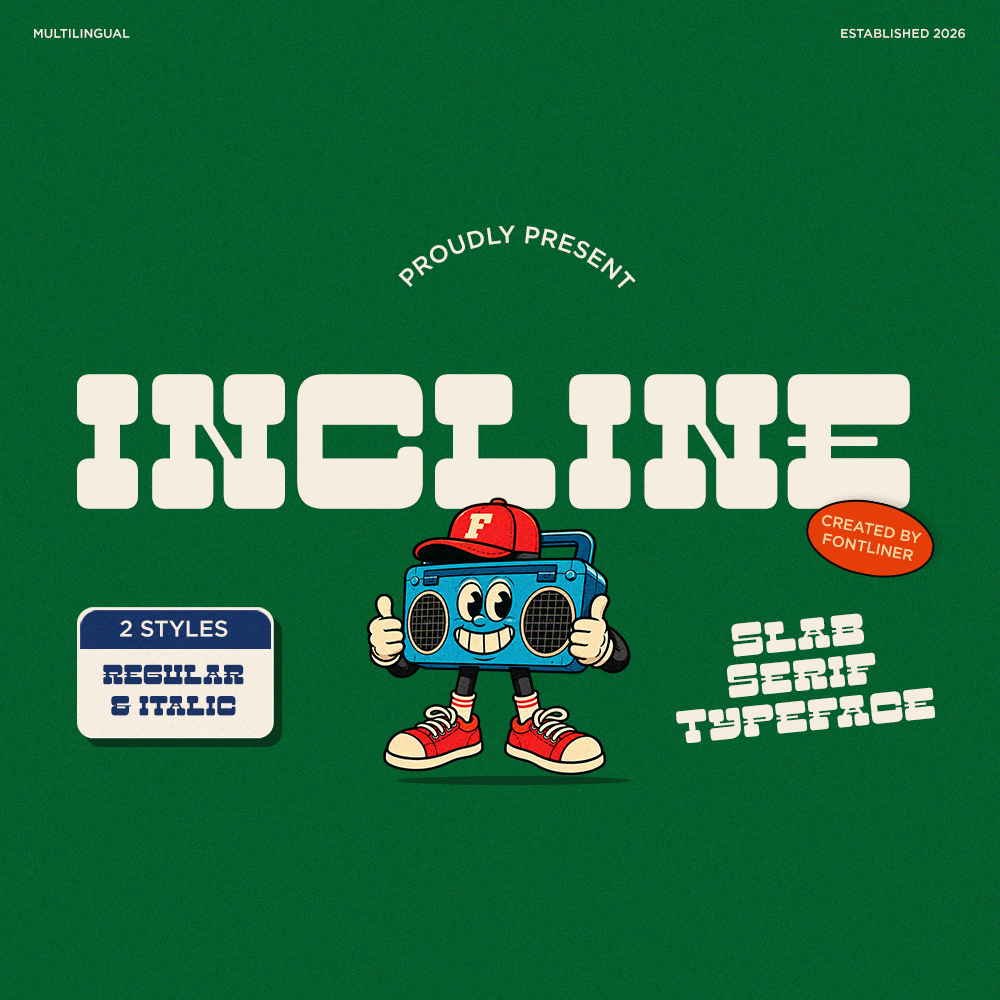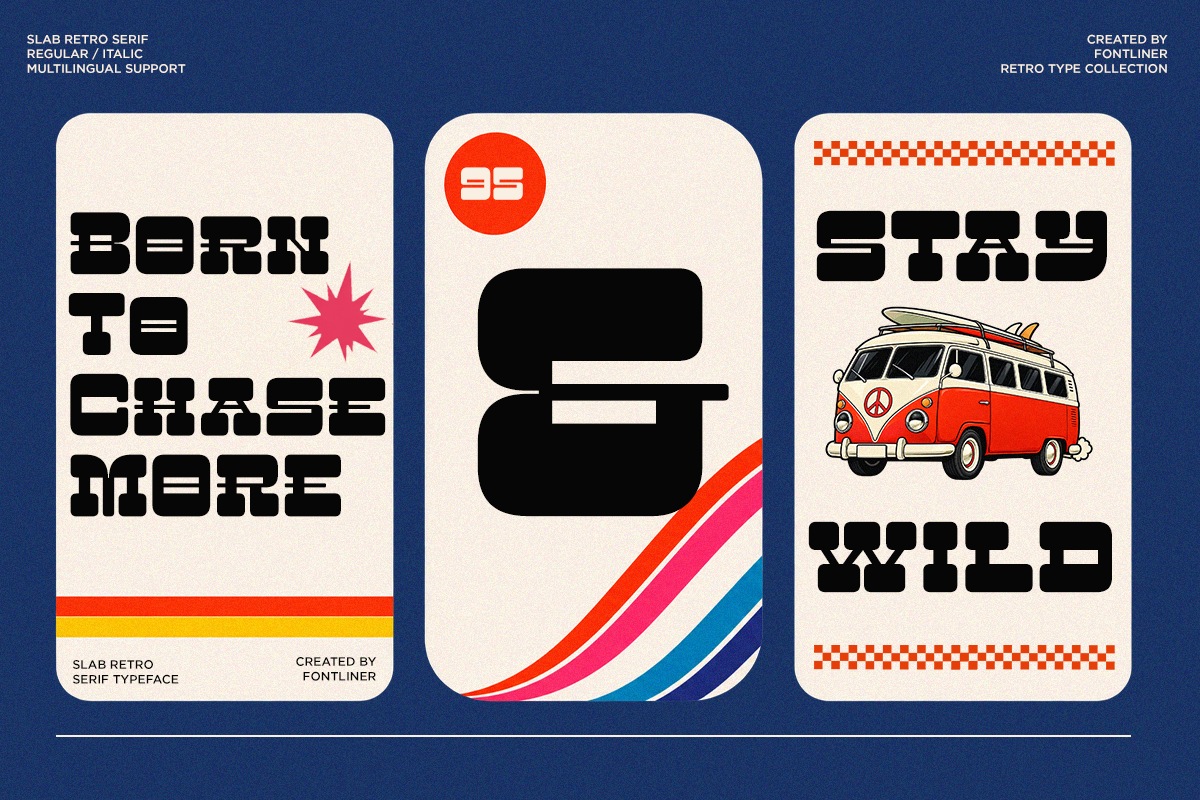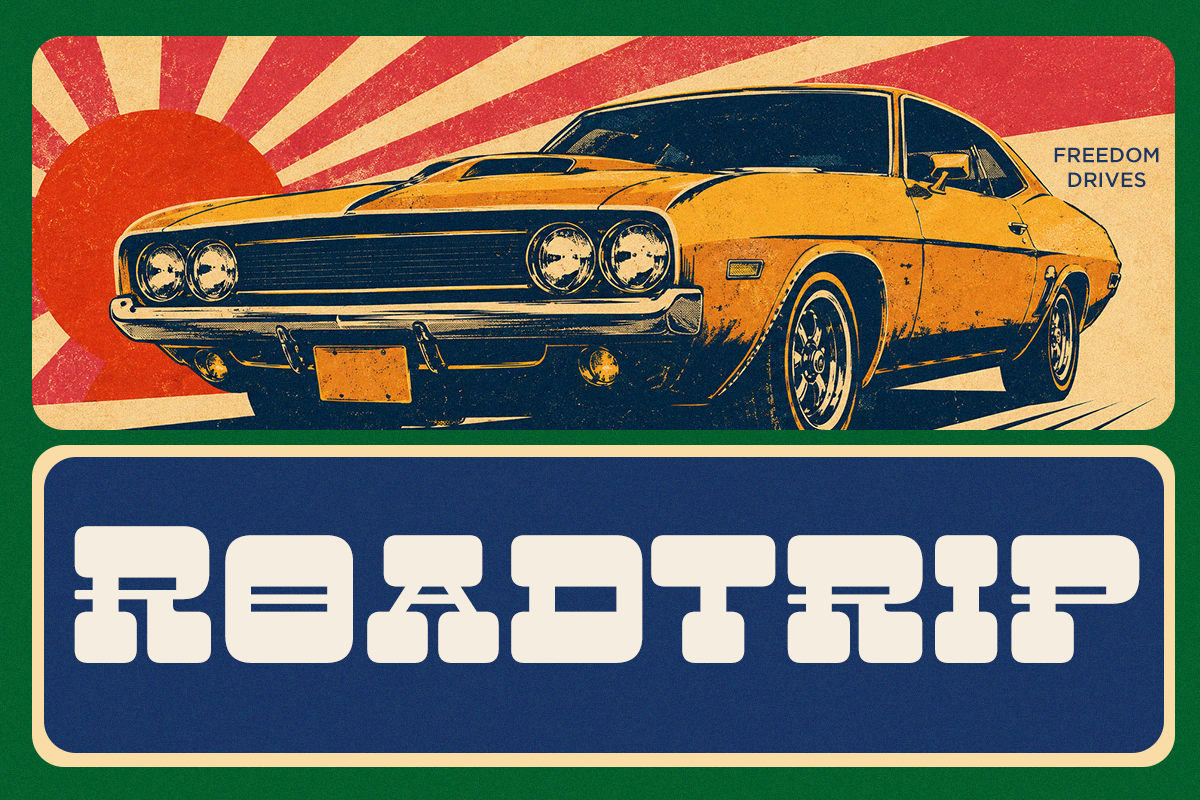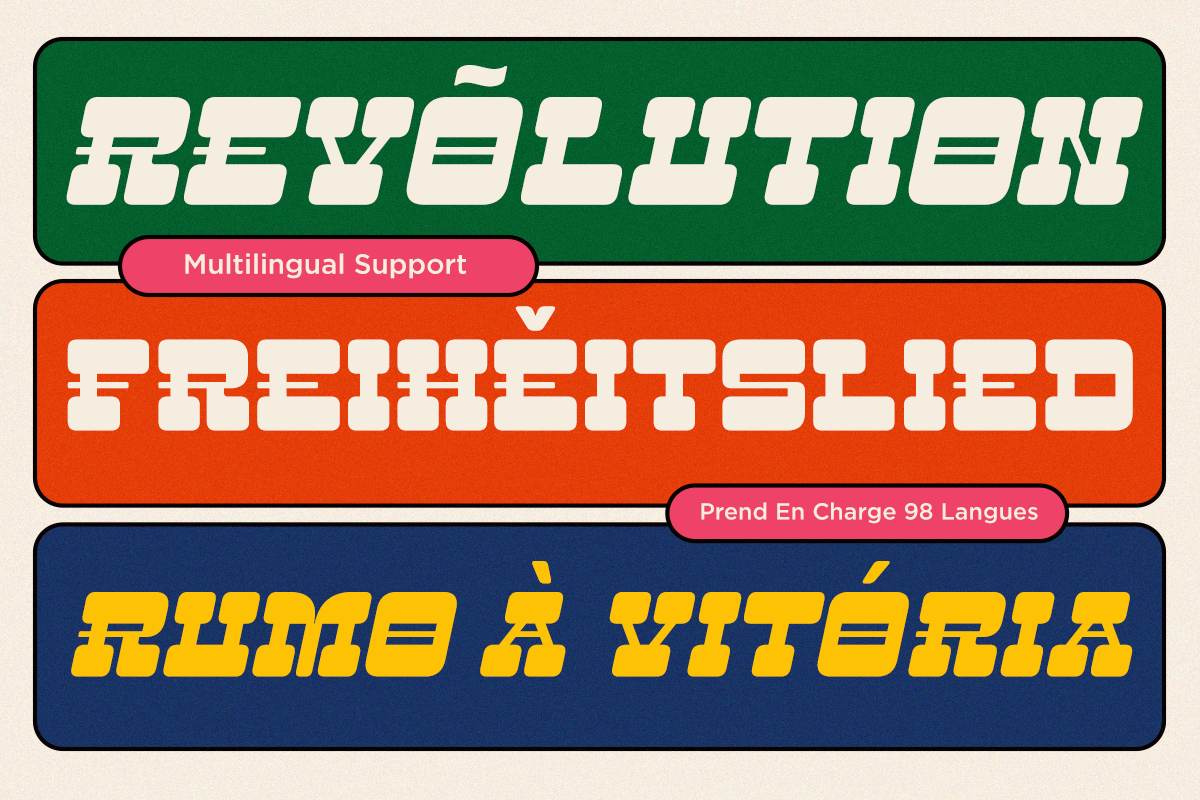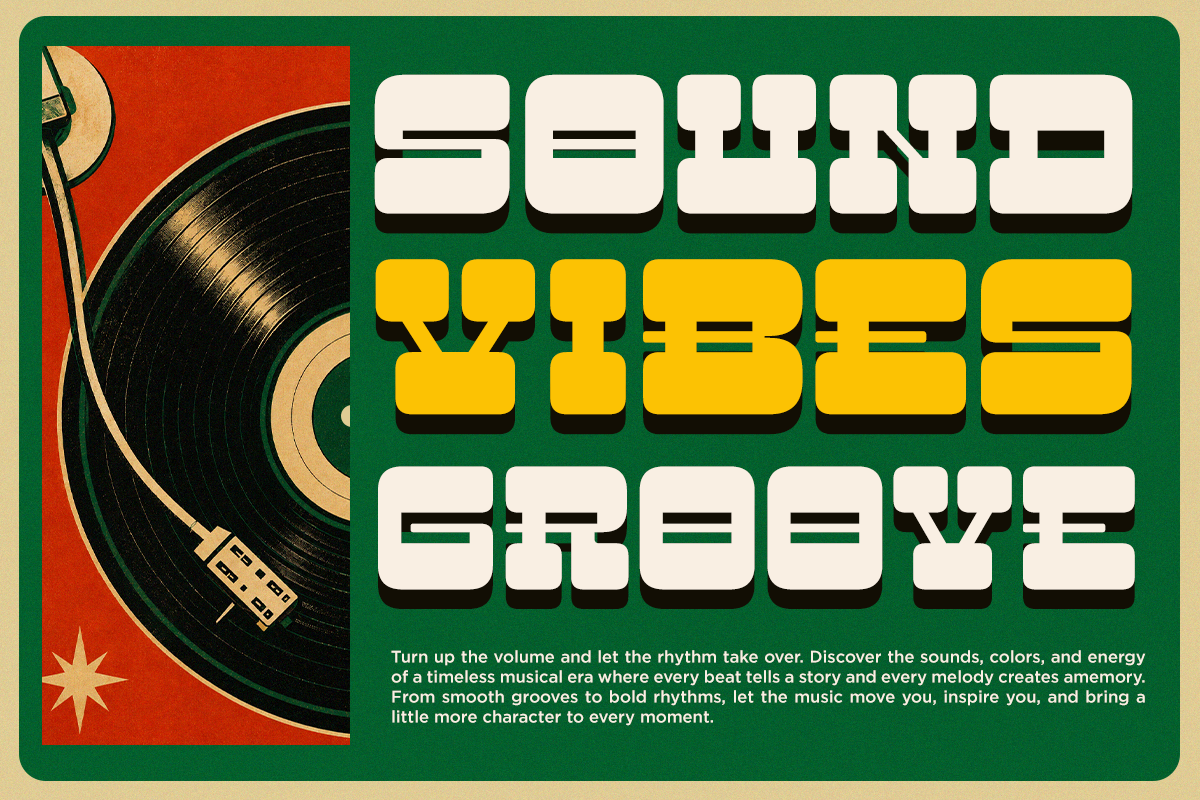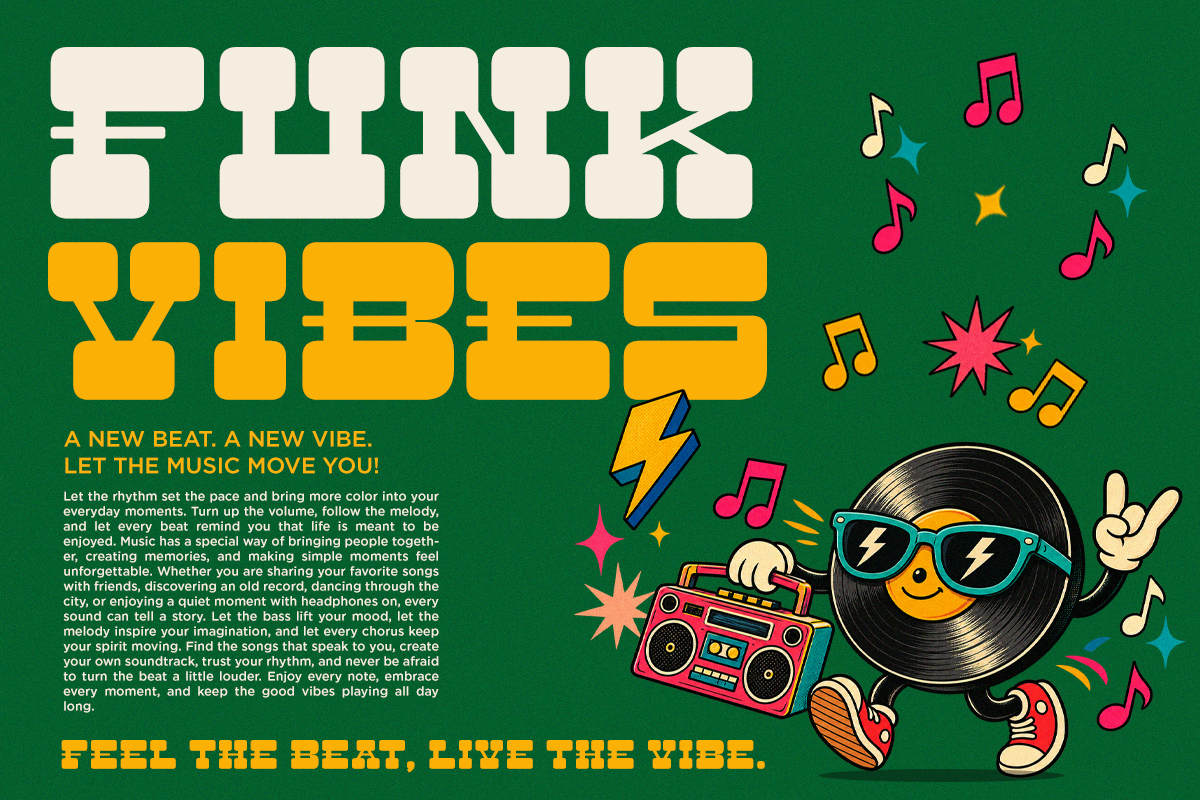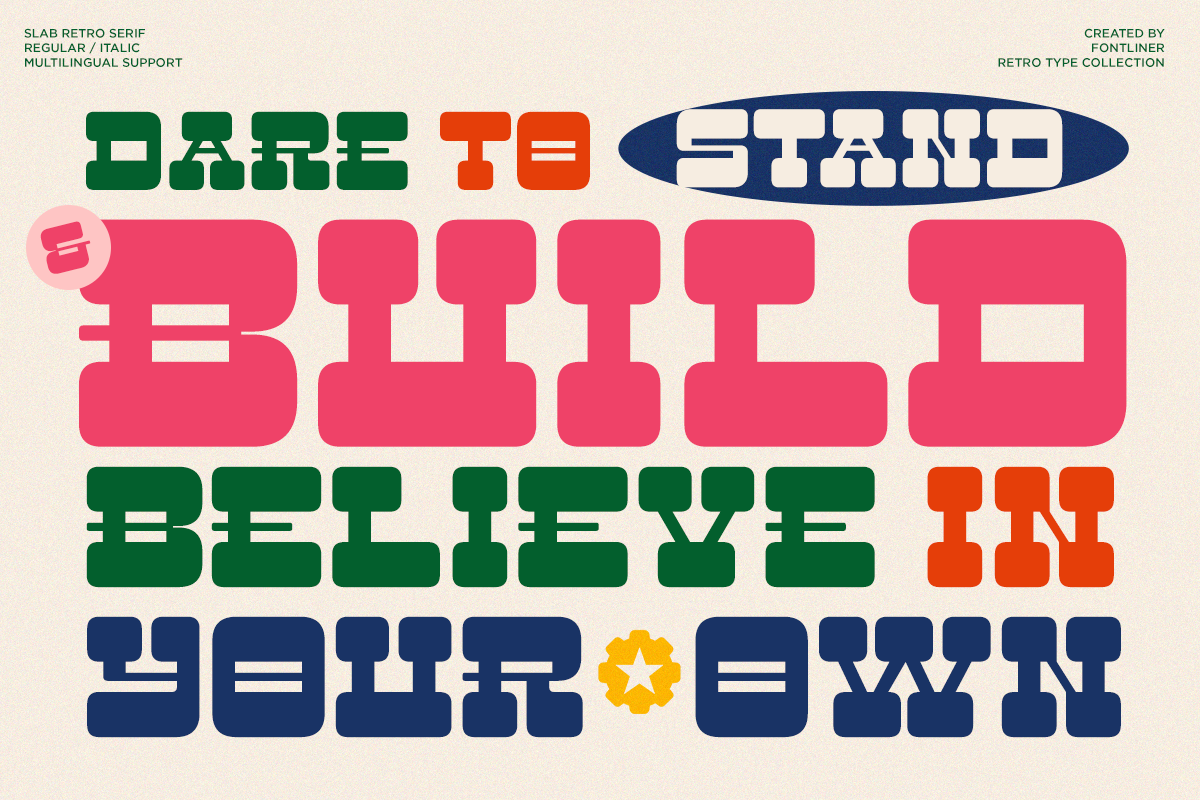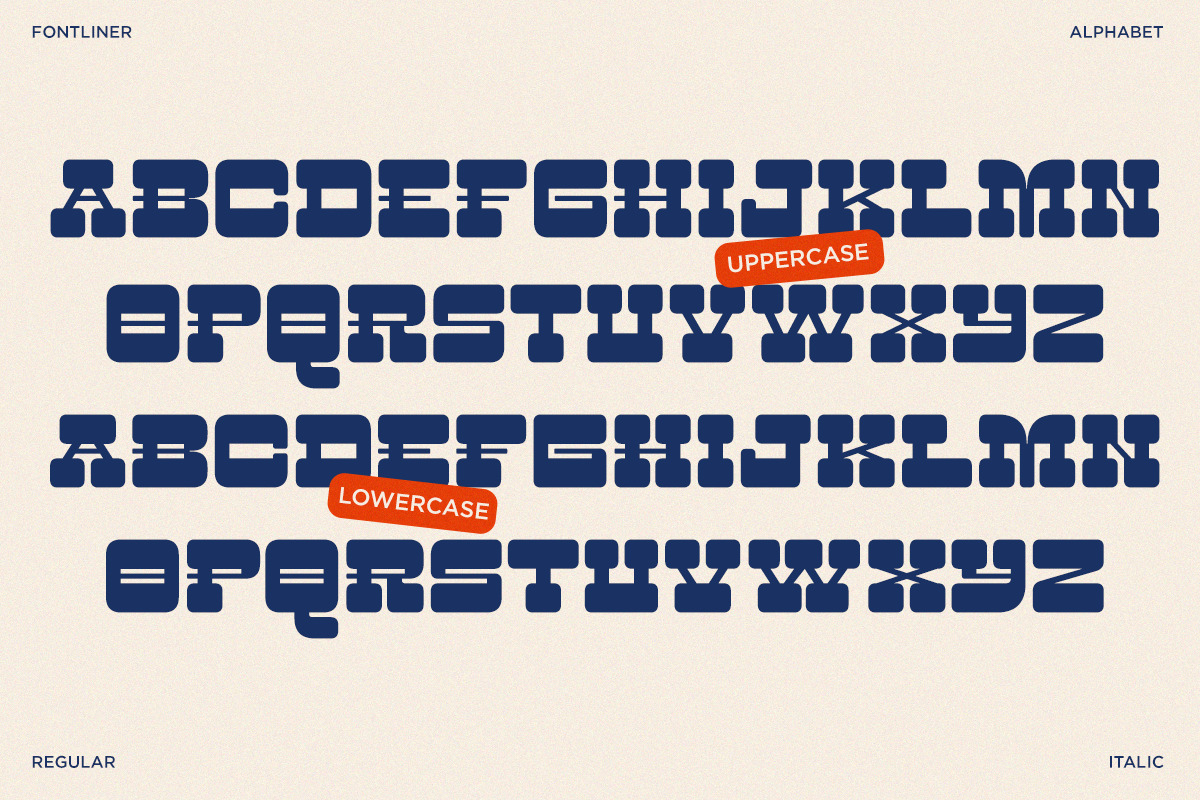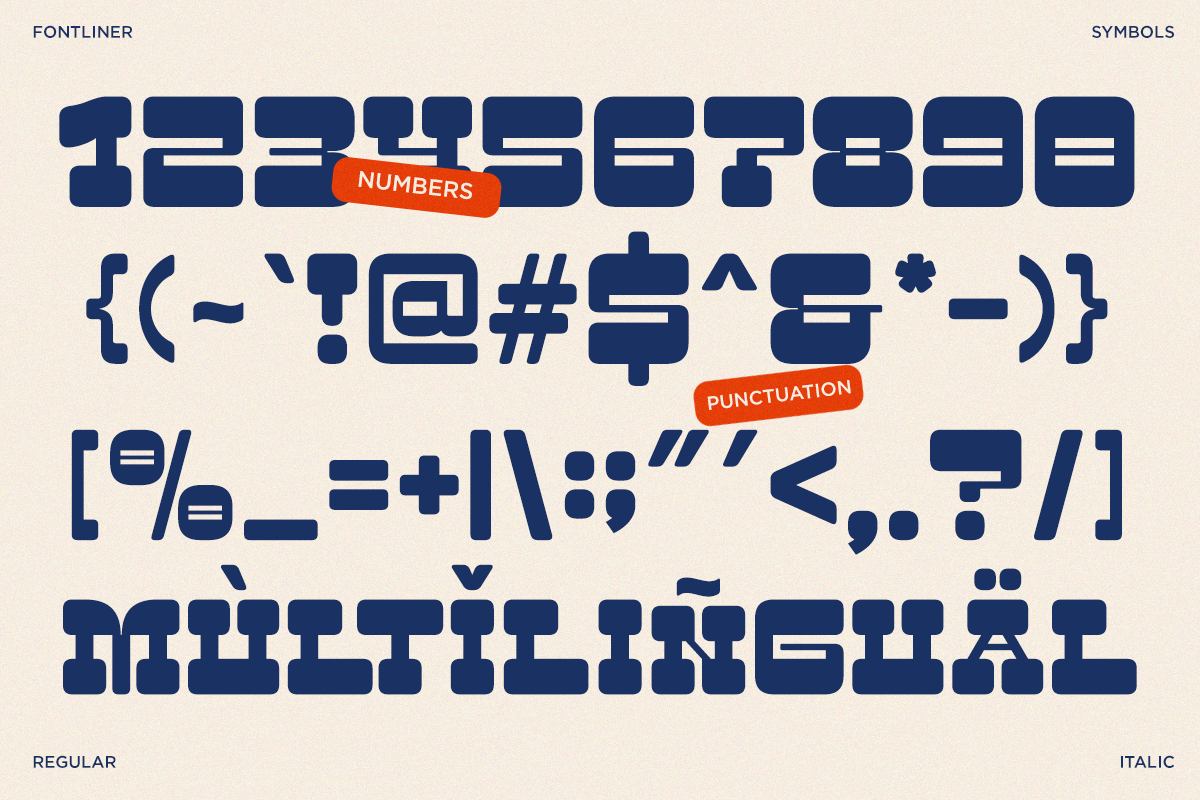
Incline – Retro Groovy Slab Serif Font
Incline is a bold and playful retro display font inspired by the vibrant spirit of classic music posters, vintage advertising, and groovy pop culture. Featuring chunky rounded letterforms, expressive shapes, and a distinctive nostalgic personality, Incline brings an energetic retro feel to modern creative projects.
Designed to make headlines stand out, Incline is perfect for music posters, album covers, branding, packaging, editorial layouts, T-shirts, merchandise, stickers, signage, and social media graphics. Its bold proportions and unique character make it especially effective for large-scale typography and eye-catching visual compositions.
Whether you're creating a vintage-inspired brand identity or a colorful contemporary design, Incline adds a fun, funky, and memorable typographic voice. Its retro aesthetic works beautifully for projects that need personality, movement, and a strong visual statement.
Incline is a bold retro slab serif display font with chunky, rounded letterforms in Regular and Italic styles, including uppercase, lowercase, numbers, symbols, punctuation, and multilingual support. It is available in OTF, TTF, and WOFF formats.